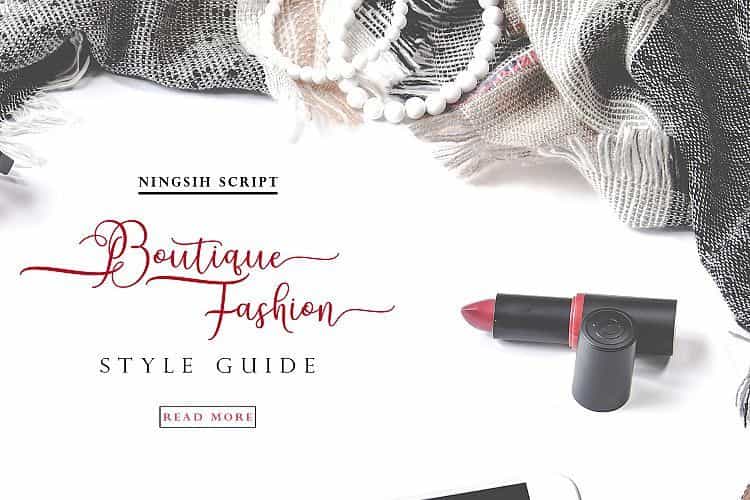
Ningsih Script is a new modern calligraphy Typeface Fonts which is combination from copperplate to contemporary typeface, classic, beautiful and elegant touch. It has been created and published by Bexxtype. It is a fresh and modern script with elements of handmade calligraphy, the presence of decorative characters and a dancing baseline.